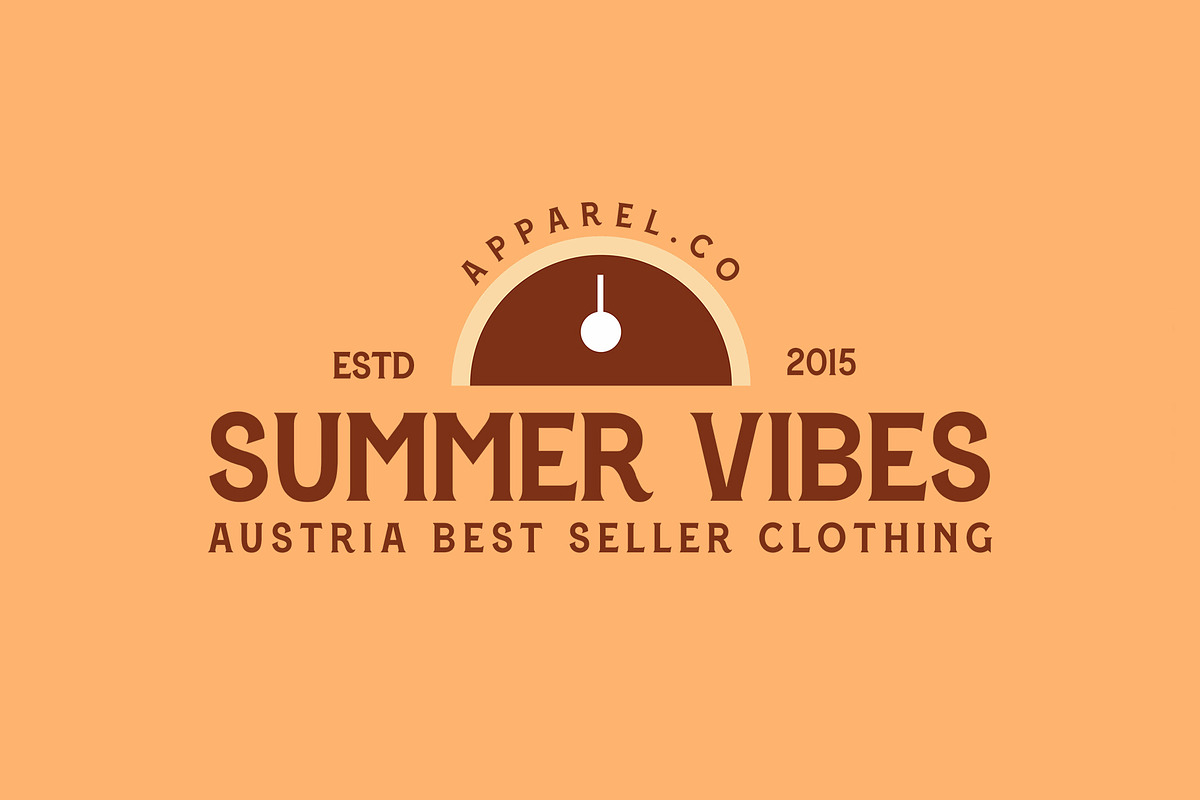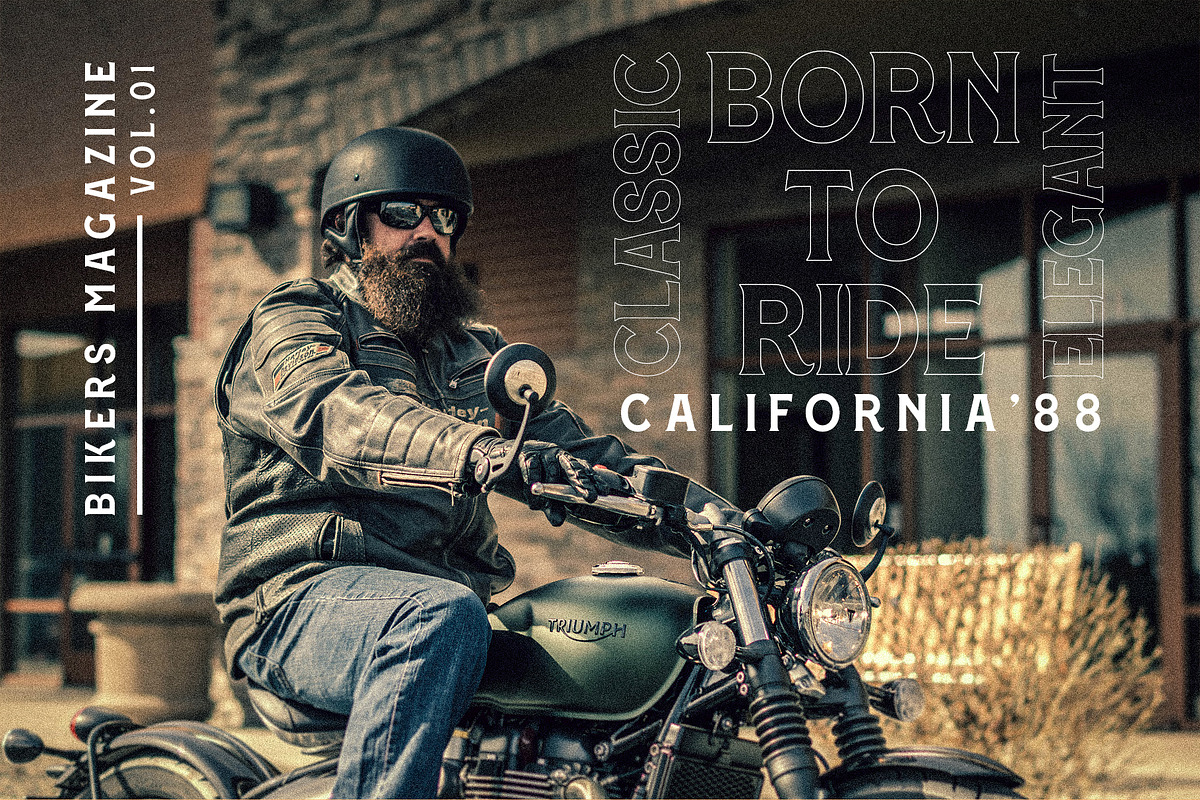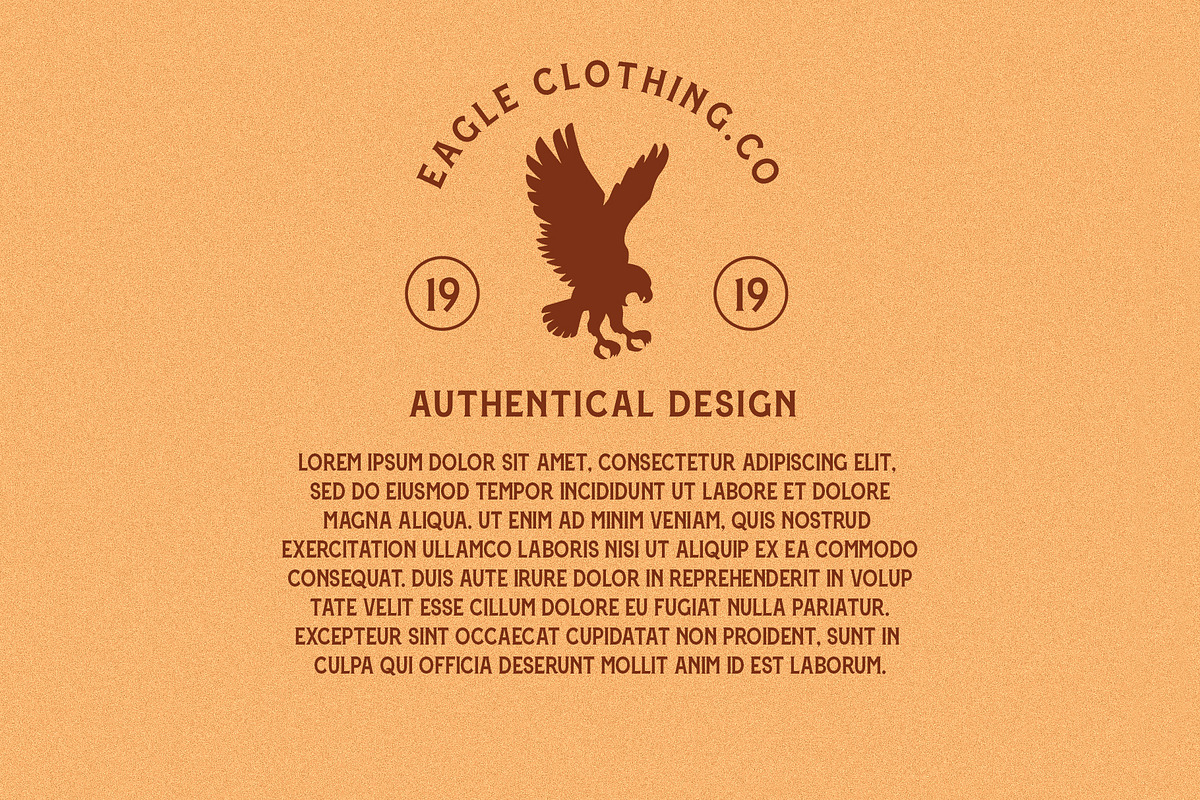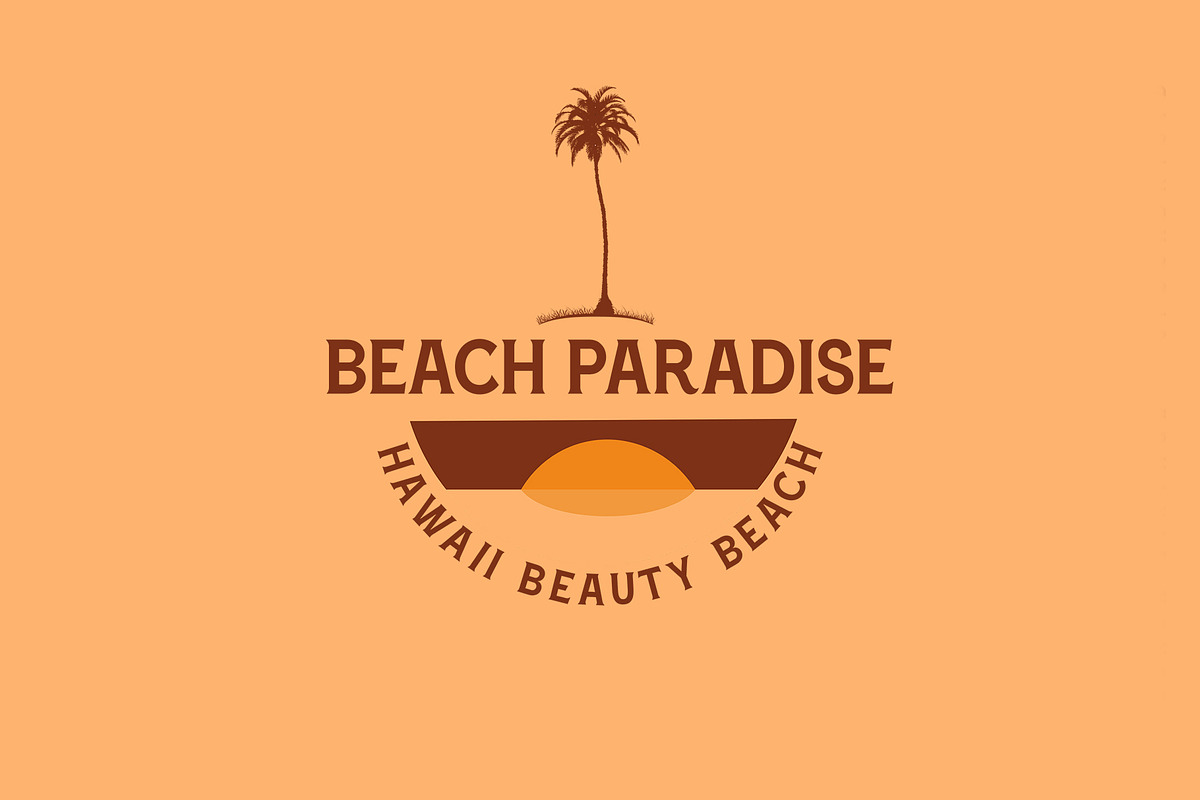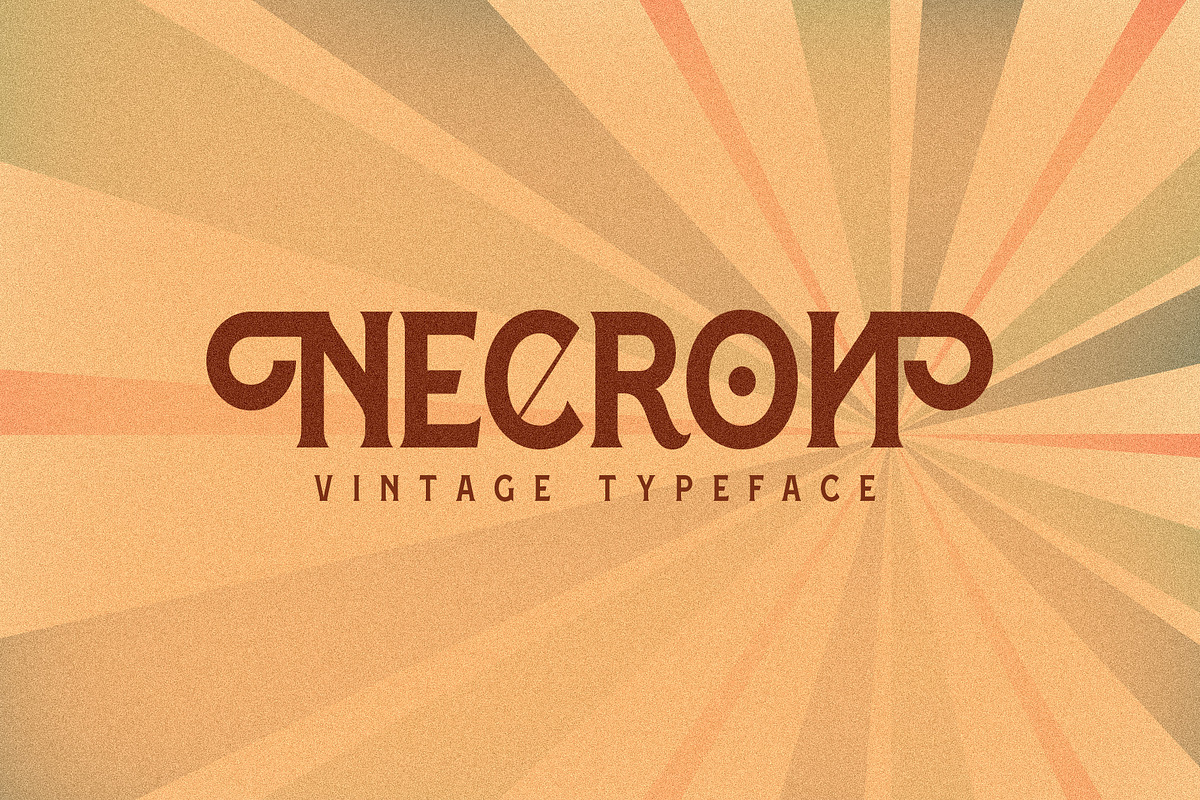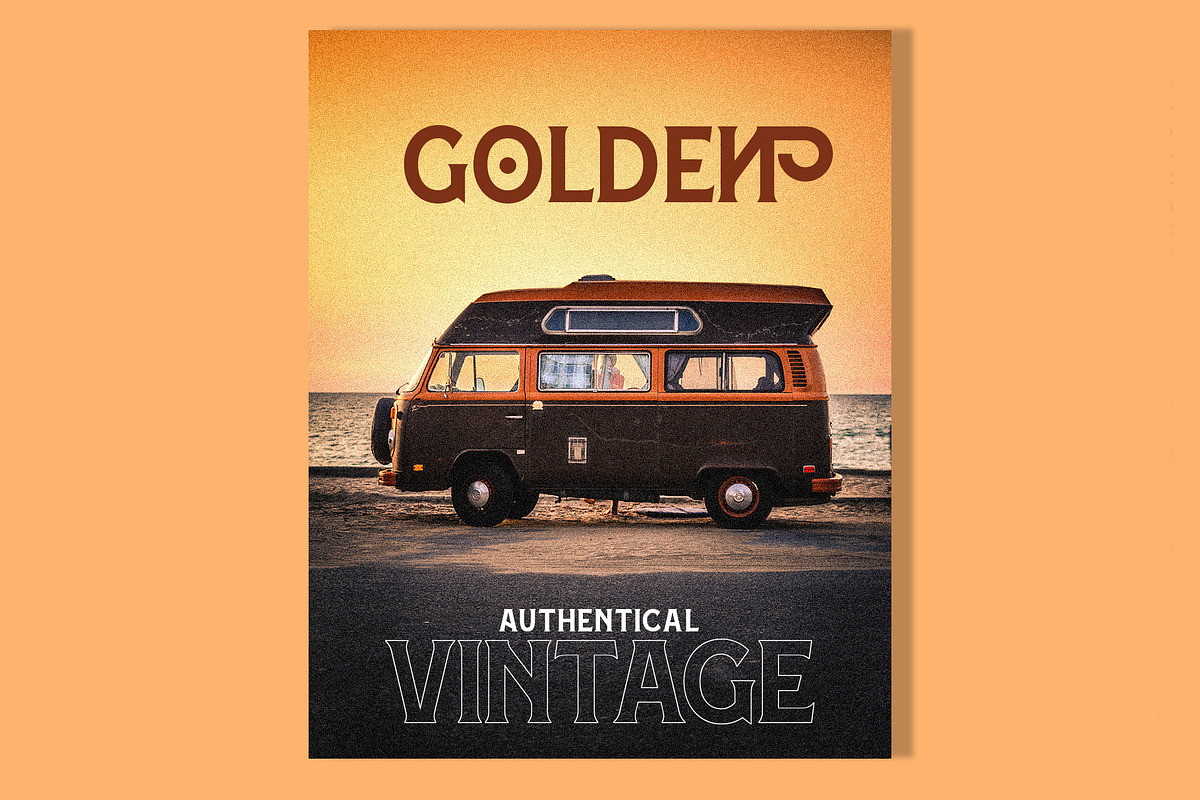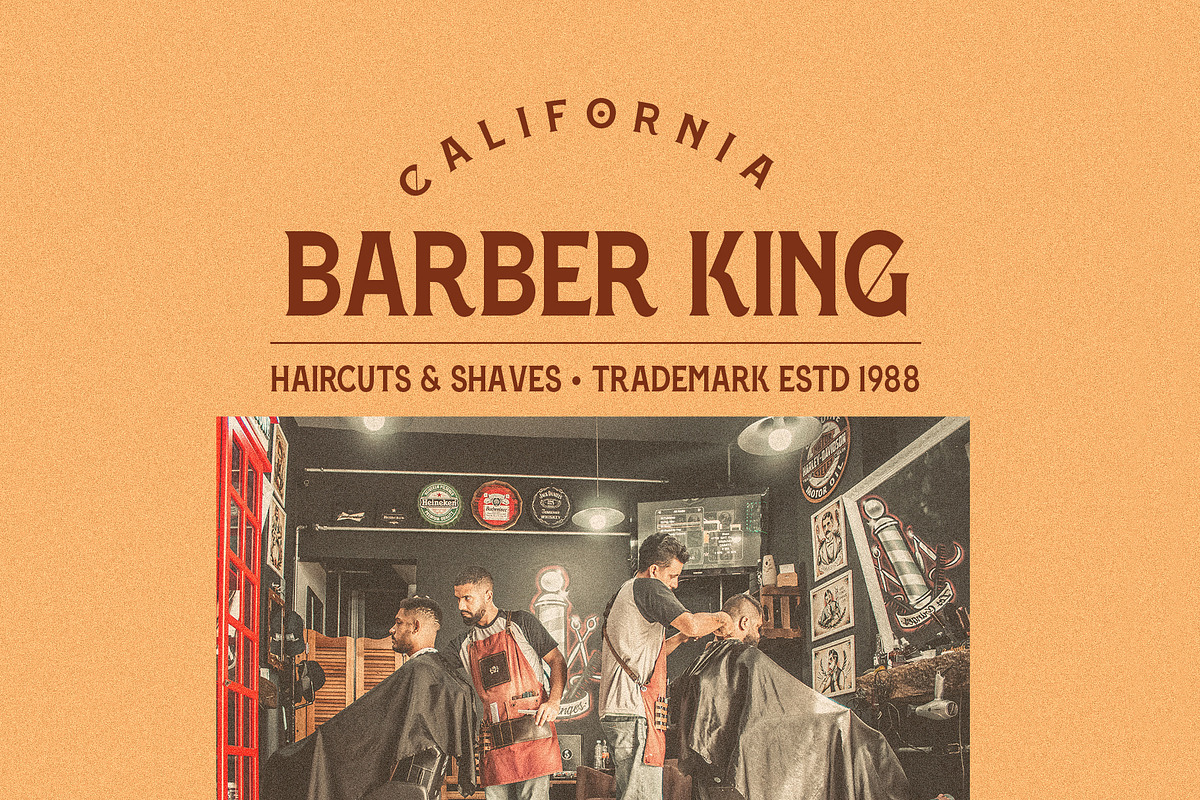
Necron
Hello everyone, on this occasion we would like to introduce our newest product, which we named "Necron". back to vintage and classic styles. will really help your design look more classic and special. get it immediately at an affordable price.